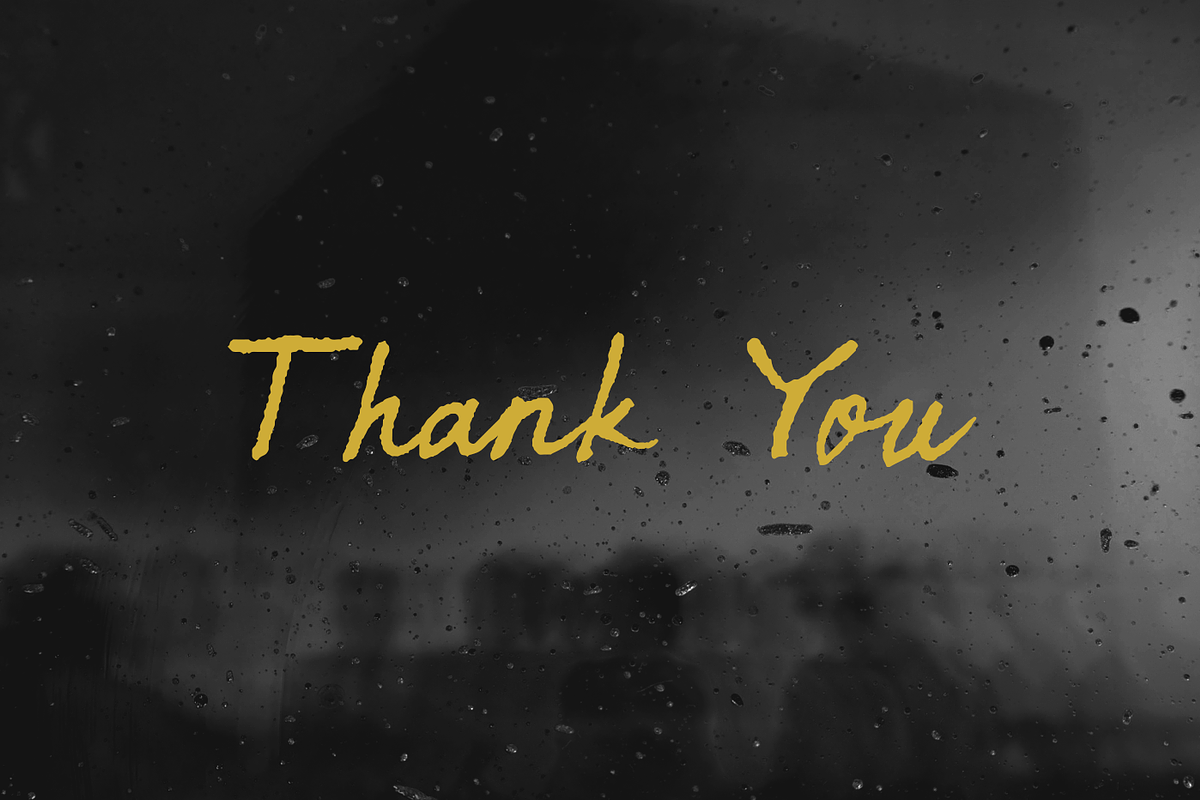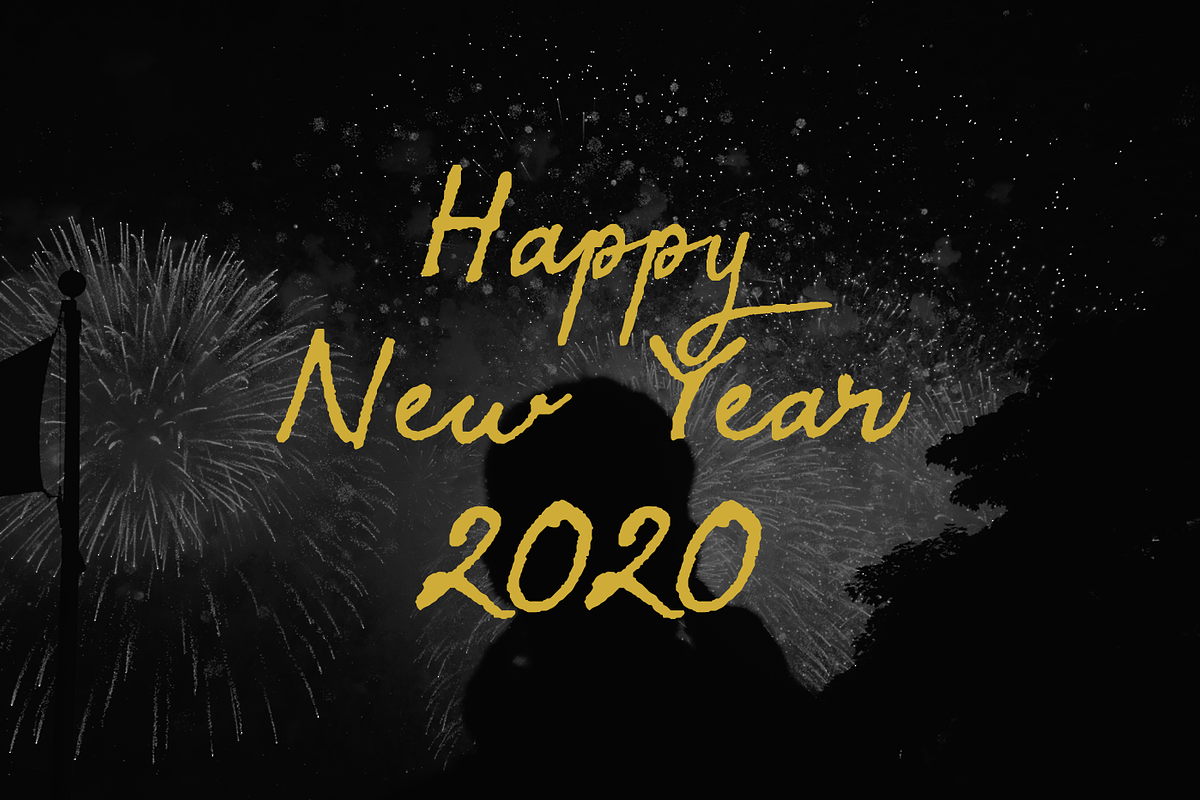
Sympathic
Sympathic - Script handwritten font. This font is suitable to use for fashion, classic style, elegant style, wedding & nature etc.
- Ton of glyphs (Uppercase, Lowercase, Numerals, Punctuations, Ligature, Stylistic Alternative & Multilingual Support)